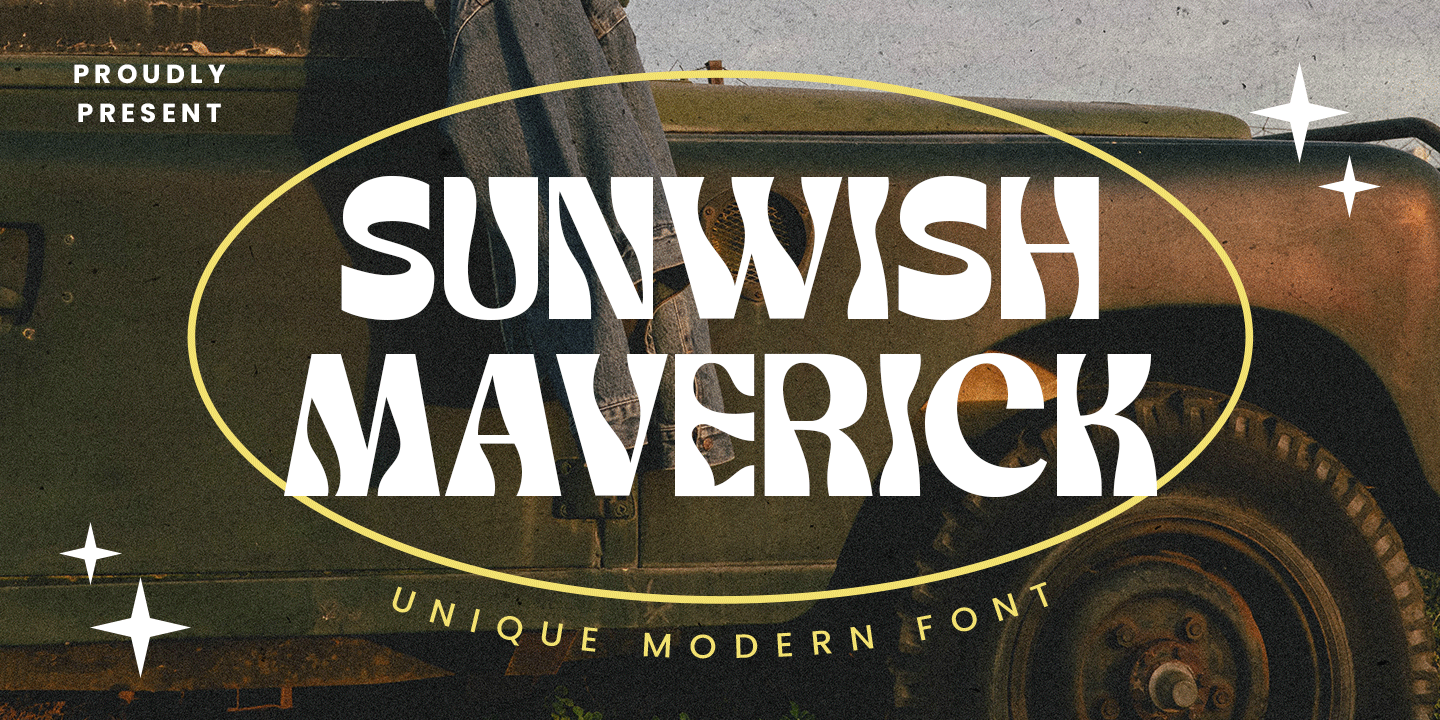
Sunwish Maverick Font is perfect for independent entrepreneur branding, maverick startup communications, unconventional business ventures, rebellious creative agency portfolios, non-conformist lifestyle brands, and bold innovation campaigns. Its maverick character makes it ideal for disruptive companies, independent consultants, creative rebels, unconventional thinkers, and any application requiring distinctive typography that conveys entrepreneurial independence, creative rebellion, and the fearless spirit of mavericks who forge their own path toward success.
Sunwish Maverick Font is exciting because it embodies the fearless independence and pioneering spirit of true mavericks through boldly unconventional letterforms that reflect the courage to challenge established norms and create original solutions. Its maverick proportions and rebel-inspired details evoke the adventurous spirit of entrepreneurs who dare to be different and the inspiring confidence of individuals who trust their vision over conventional wisdom, making it perfect for brands celebrating independent thinking. The font's maverick character transforms communications into declarations of creative independence.
Sunwish Maverick Font family includes independently-designed weight variations typically featuring Light, Regular, Medium, and Bold options with unconventional styling that maintains maverick authenticity. The family often incorporates rebel symbols, independence elements, and pioneering characters designed for non-conformist applications, providing designers with comprehensive tools for creating authentic, maverick-focused typographic compositions.
When selecting independent maverick typography solutions, Sunwish Maverick Font Free Download represents an exceptional choice for unconventional and entrepreneurial projects. This distinctive typeface brings instant maverick authenticity to any design, making it invaluable for independent businesses, creative rebels, and unconventional brands celebrating entrepreneurial independence. Whether you're developing maverick startup branding, creating rebellious creative campaigns, or designing independent entrepreneur materials, Sunwish Maverick Font provides the fearless independence and maverick authenticity essential for standing apart in today's conformity-challenging entrepreneurial marketplace.